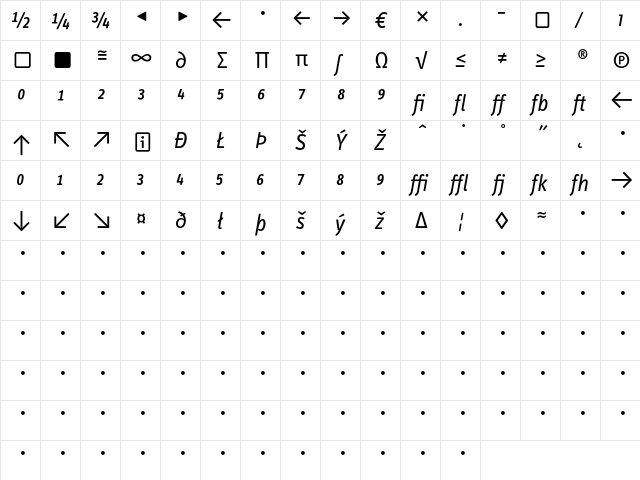
InfoDispRegular ItalicExp
Design Context for InfoDispRegular Typeface
InfoDispRegular takes a measured approach to typography — its balanced proportions and neutral character make it a reliable workhorse for both digital and print work. The dynamic lean of this cut emphasises speed and emphasis in any layout.
Pro Tip: Try InfoDispRegular for annotation and caption copy alongside an upright companion — the contrast in angle creates a dynamic but ordered typographic system.